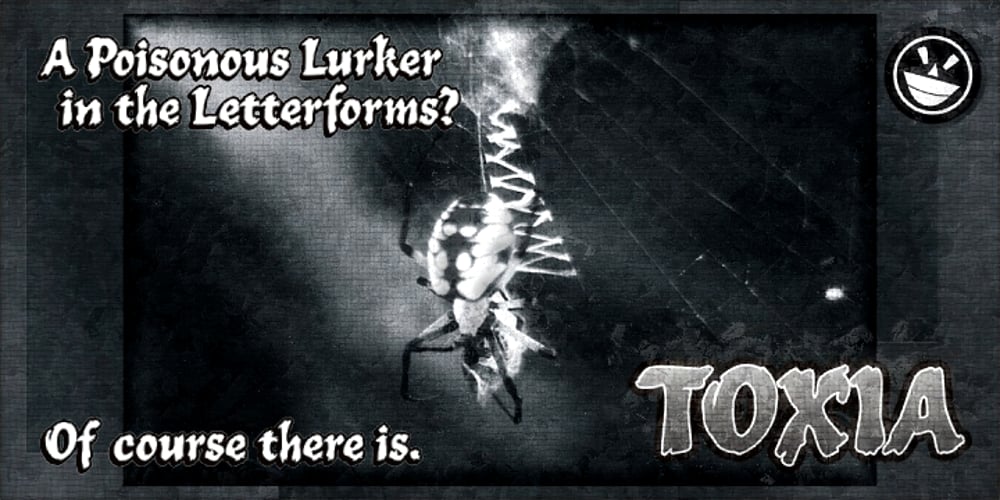
WILD1 Toxia
WILD1 Toxia font
WILD1 Toxia Font Family was designed by Michael Gene Adkins and published by The Fontry. WILD1 Toxia contains 4 styles and family package options. Toxia is a creepy—yes, eerie face, like something wet and poisonous clambering out of the swamp. It’s spooky too—yes, but it’s also frighteningly easy to read. Just don’t let it drip on you! Toxia is just one font in a package of five known as Wild Bunch Pak #1.